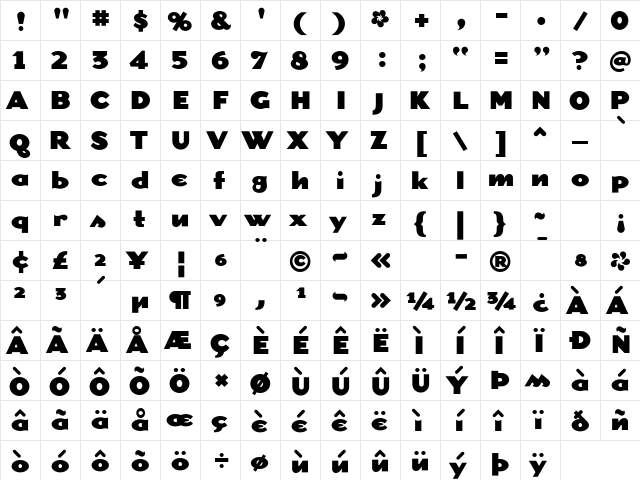
Dogma-Black Black
Design Context for Dogma-Black Typeface
Dogma-Black offers clean, dependable letterforms without strong stylistic allegiance, making it a practical choice for designers who need flexibility.